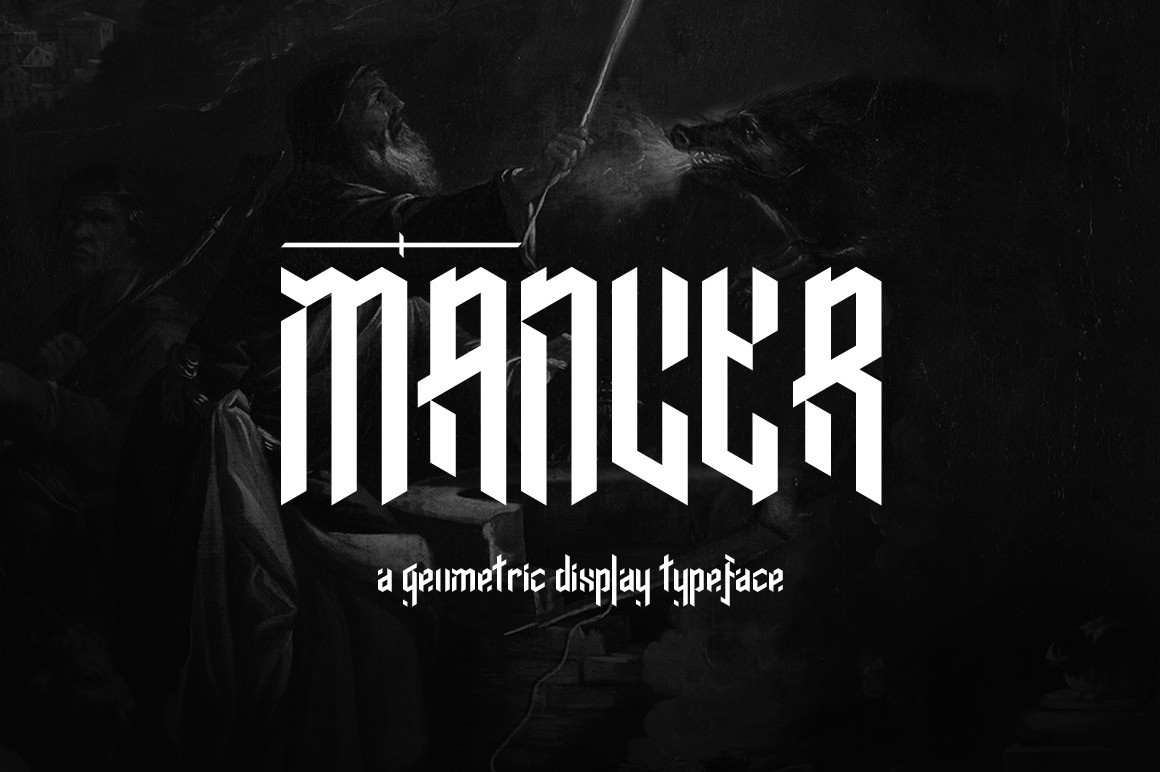
Mancer Typeface
Mancer could be the key ingredient in your next metal poster, or BBQ branding project. Mancer's unique geometric take on the traditional blackletter style makes for a unique font that combines the old with the new.
• A geometric Blackletter typeface
• Capital and Lowercase
• An expansive character set that covers a wide range of Latin based languages